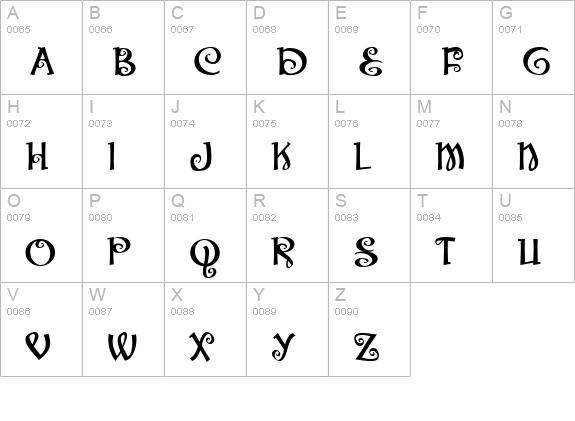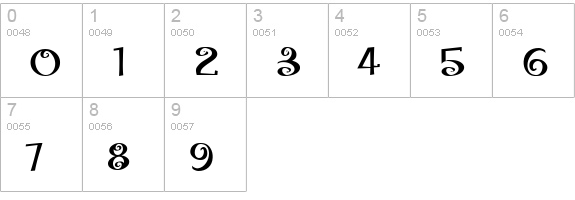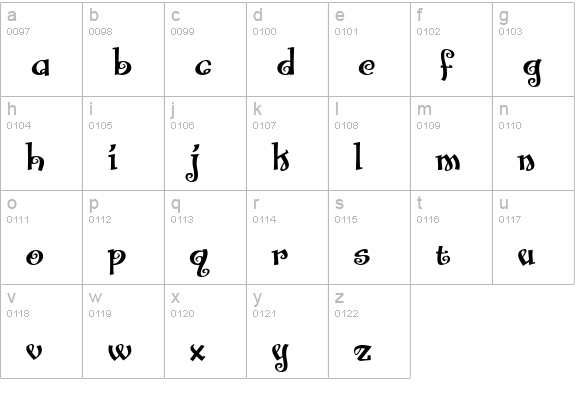
Santas Big Secret BB Font Details
Introducing Santa's Big Secret BB, a whimsical and joyful font that embodies the magic of the holiday season. This enchanting typeface captures the essence of Santa's spirit with its playful curves and cheerful demeanor. With every letter, it's as if a sprinkle of holiday cheer is being added to your designs. Santa's Big Secret BB is perfect for all your festive creations, from holiday cards and gift tags to party invitations and seasonal decorations. Its unique and vibrant style will bring a touch of merriment to any project, making it the perfect choice for spreading joy and warmth during the most wonderful time of the year. But the best part? Santa's Big Secret BB is freely available to download at FontsMarket.com. Yes, you read that right - this delightful font can be yours without spending a penny. Just head over to FontsMarket.com and indulge in the magic of Santa's Big Secret BB. Whether you're a professional designer or simply someone who wants to add a touch of holiday cheer to their personal projects, Santa's Big Secret BB is the font for you. Its versatility and charm make it a must-have in your font collection. So don't wait any longer. Discover the joy of Santa's Big Secret BB and let it bring a smile to your face and to the faces of those who receive your beautifully crafted holiday creations. Download it now, for free, at FontsMarket.com and let the magic of Santa's Big Secret BB fill your designs with festive cheer.